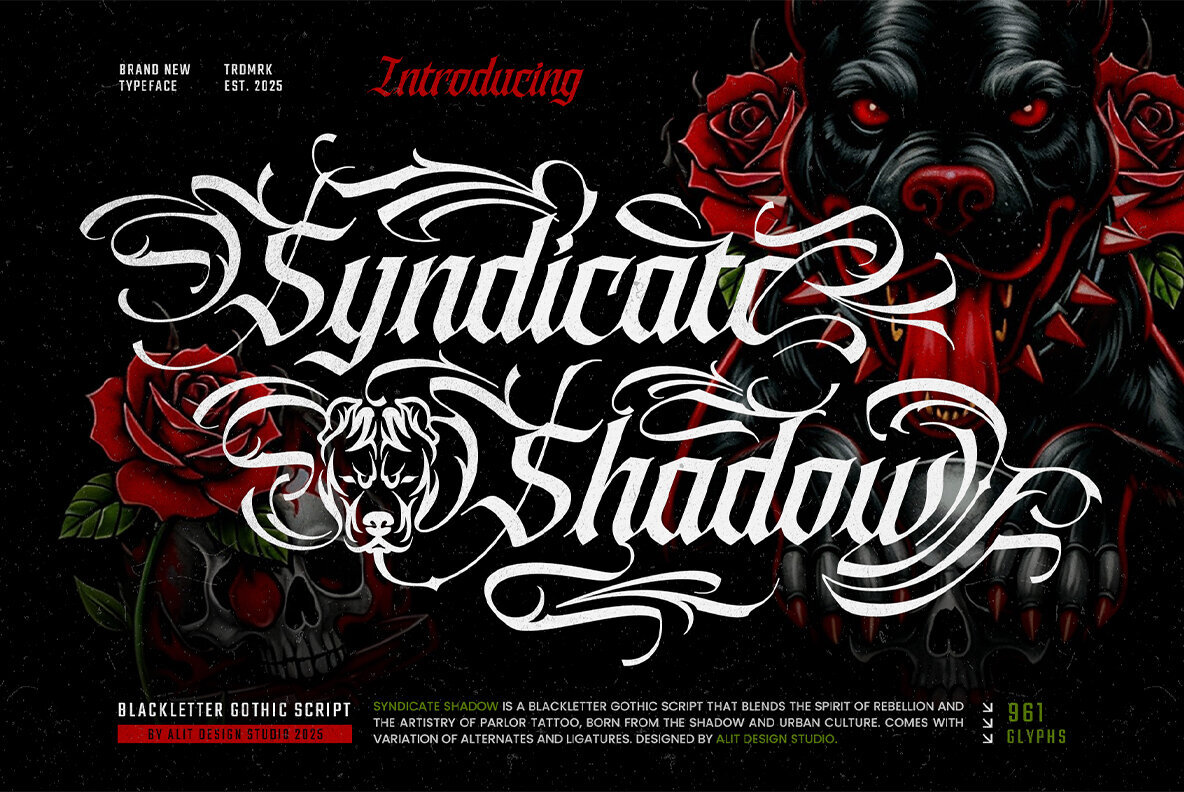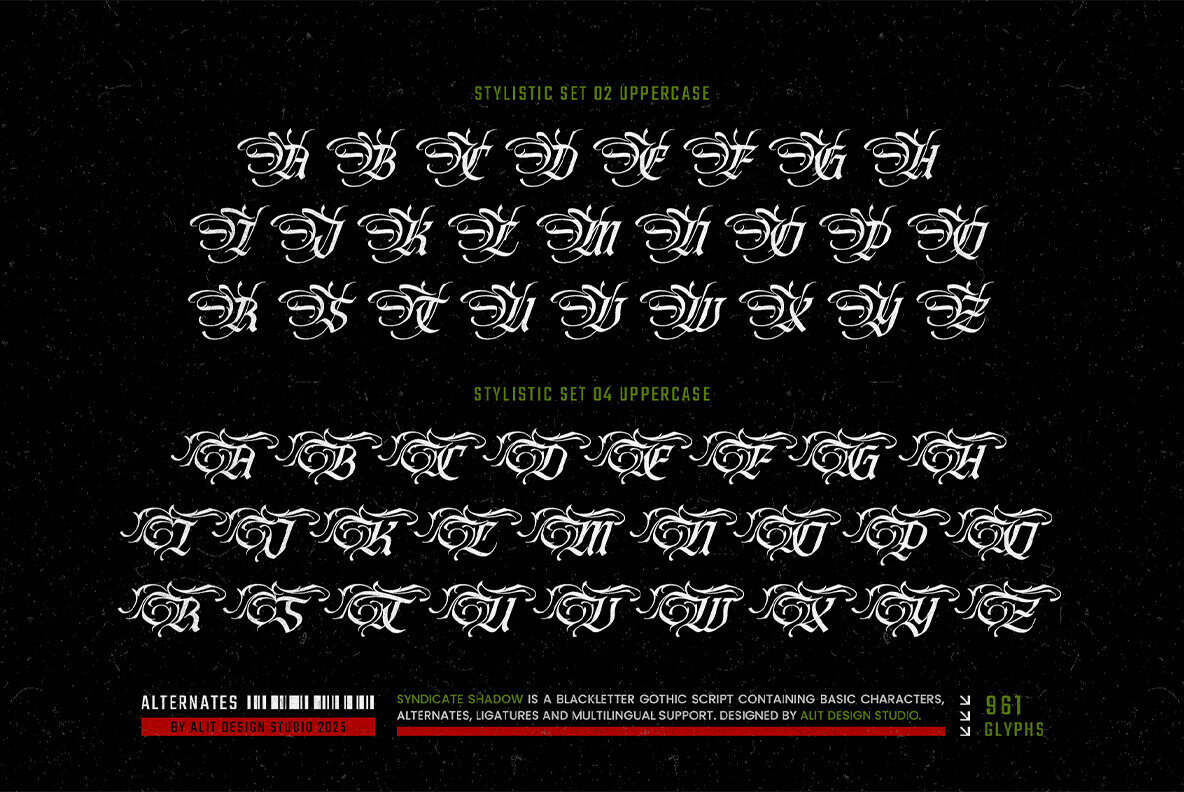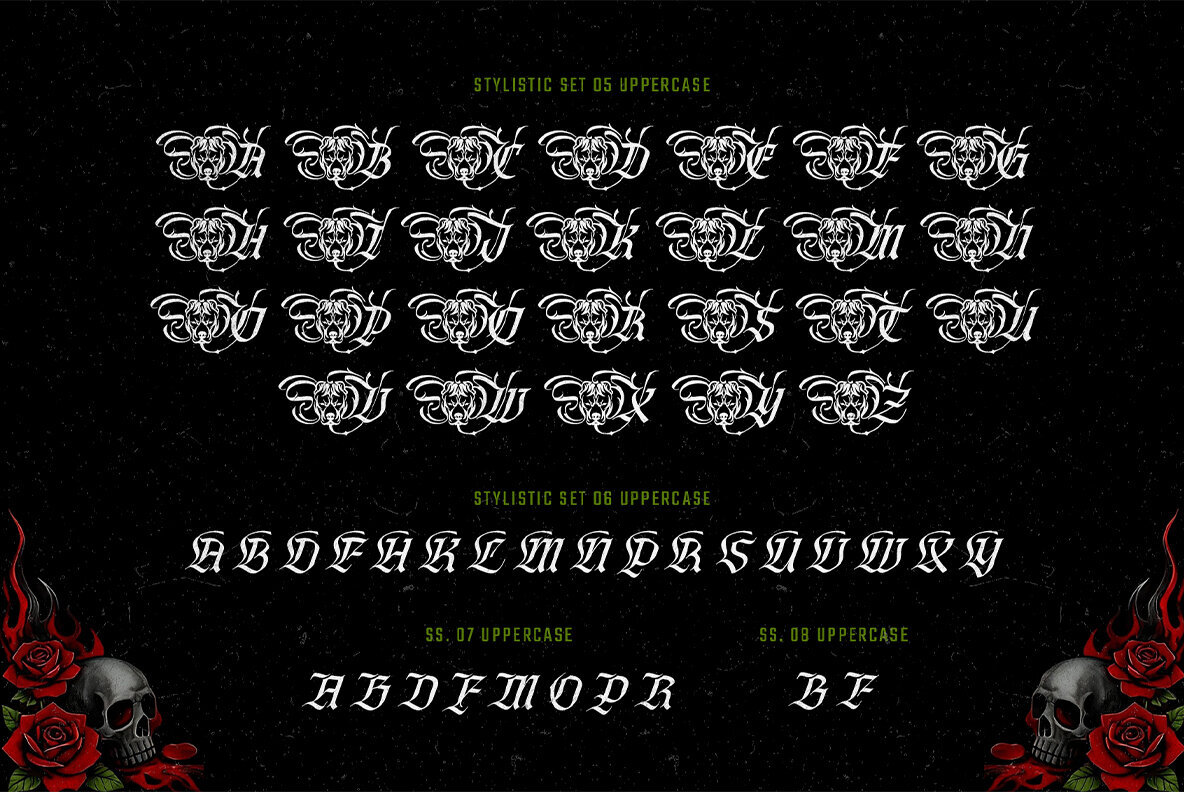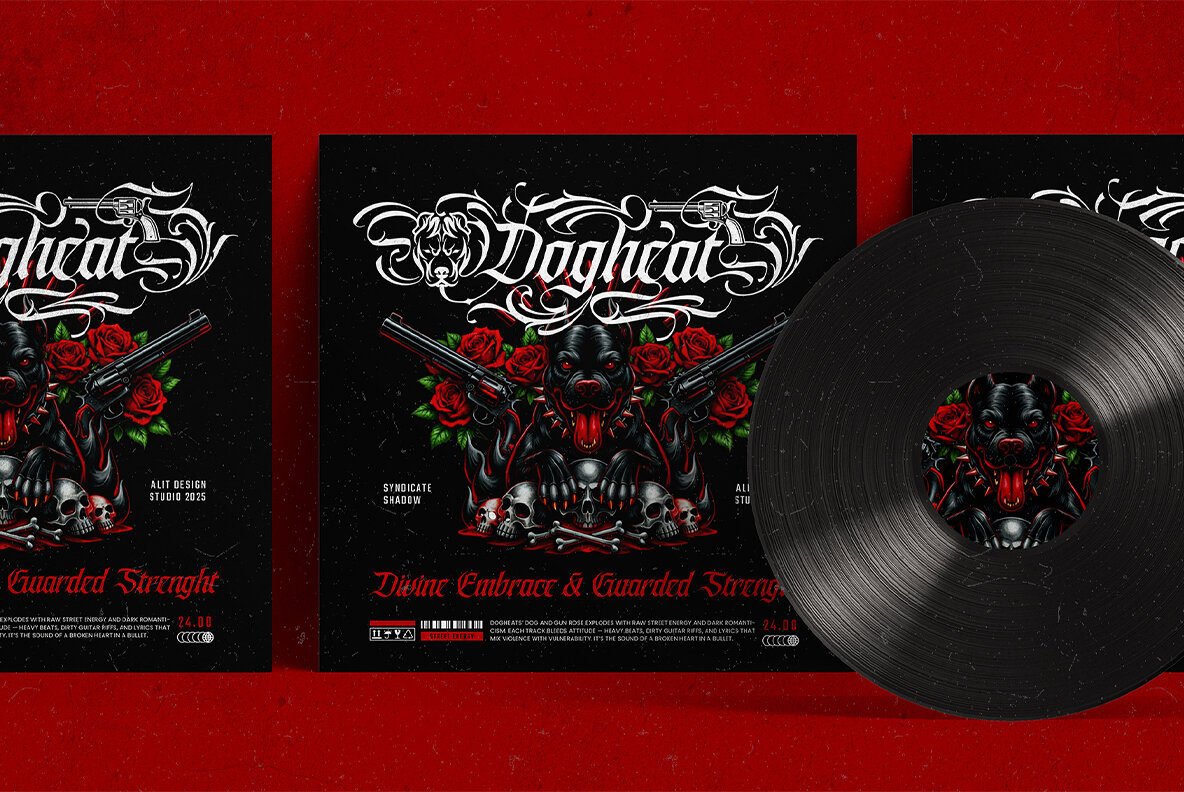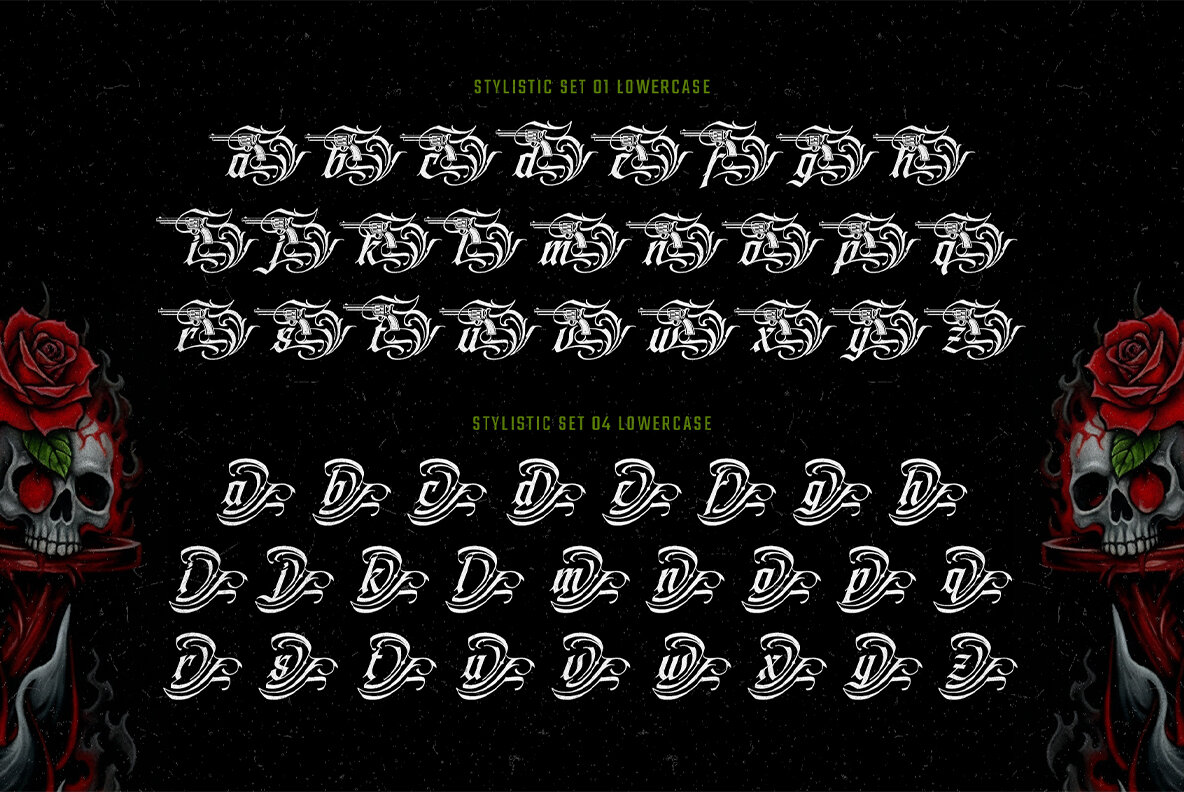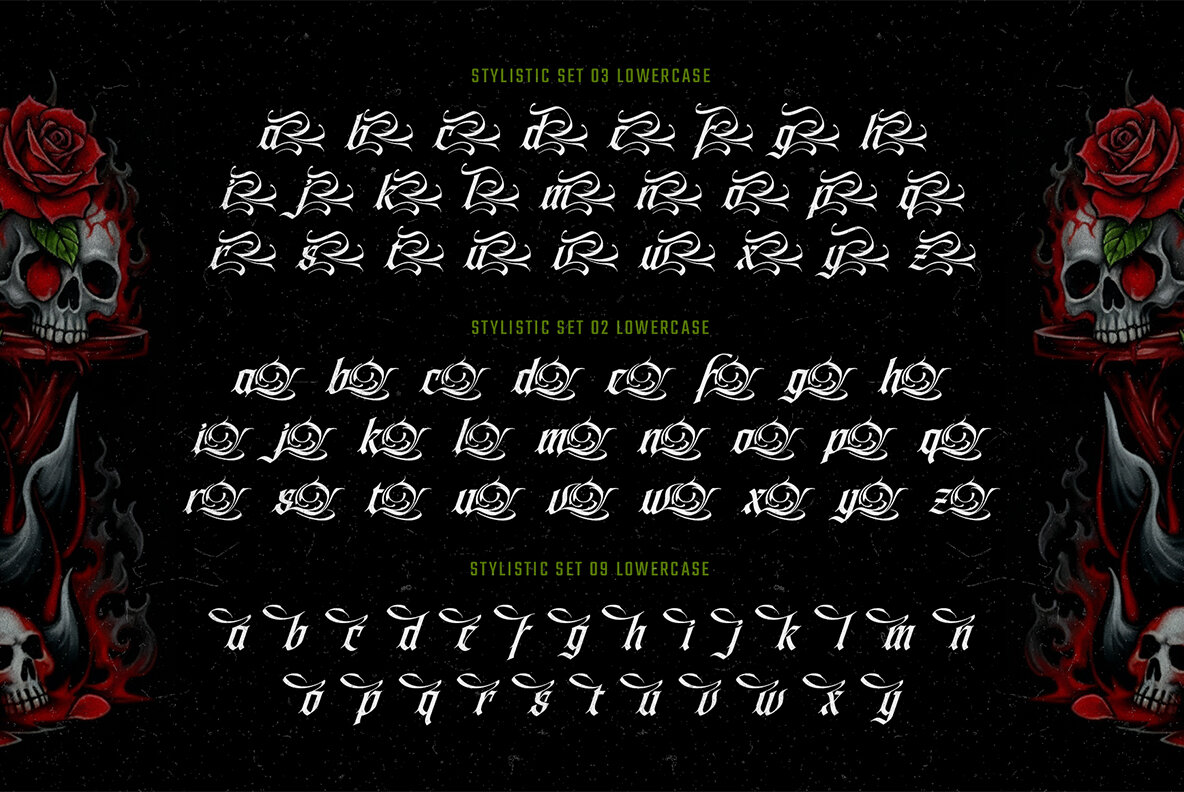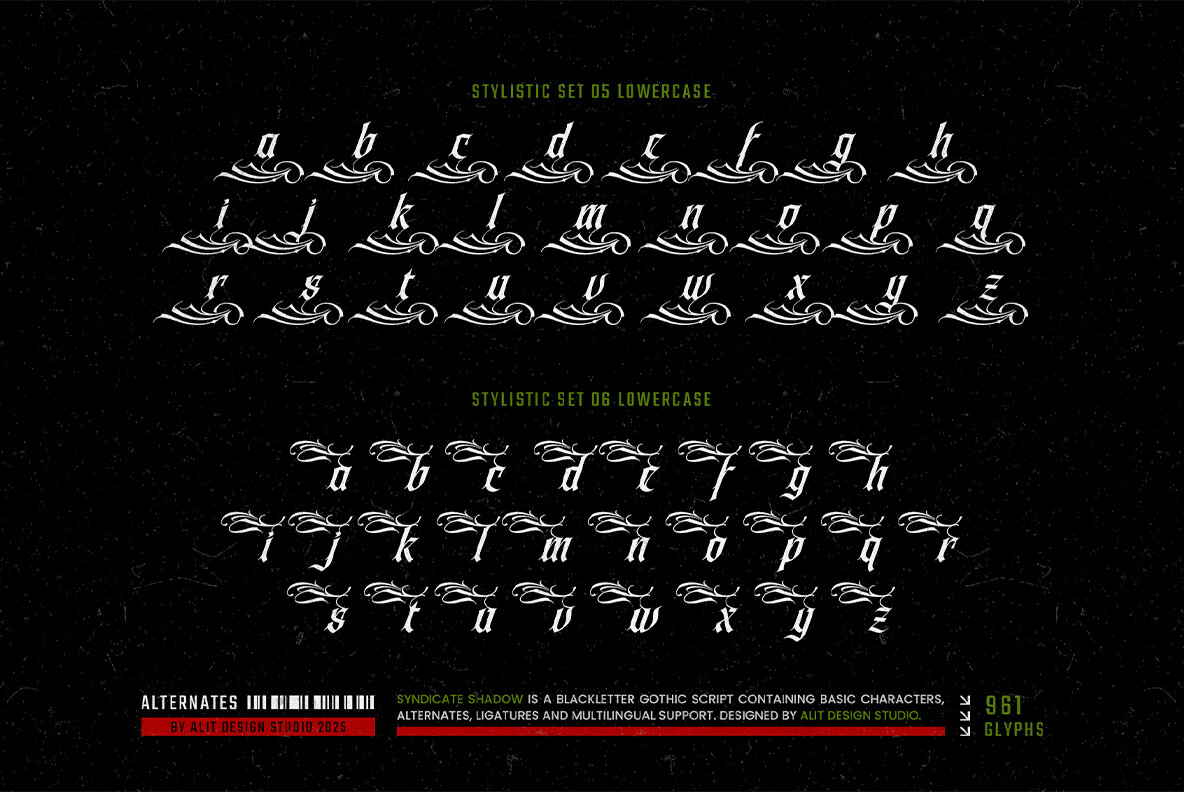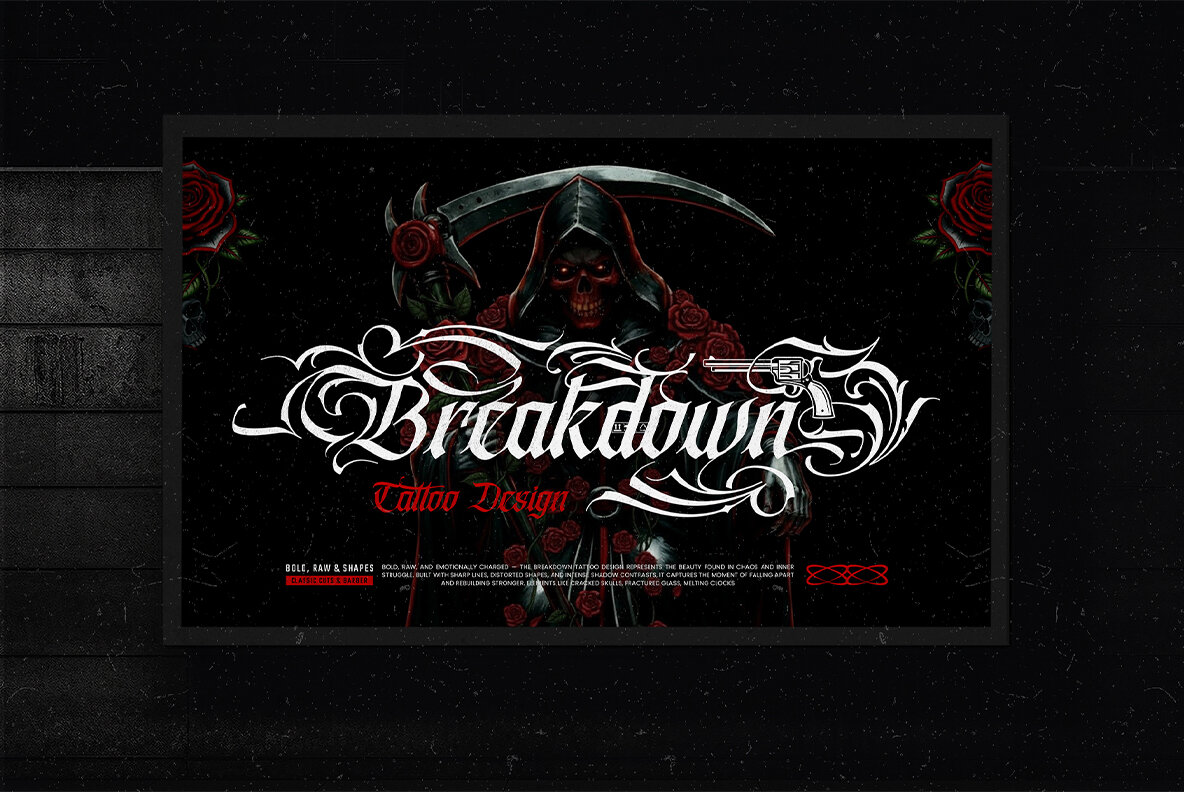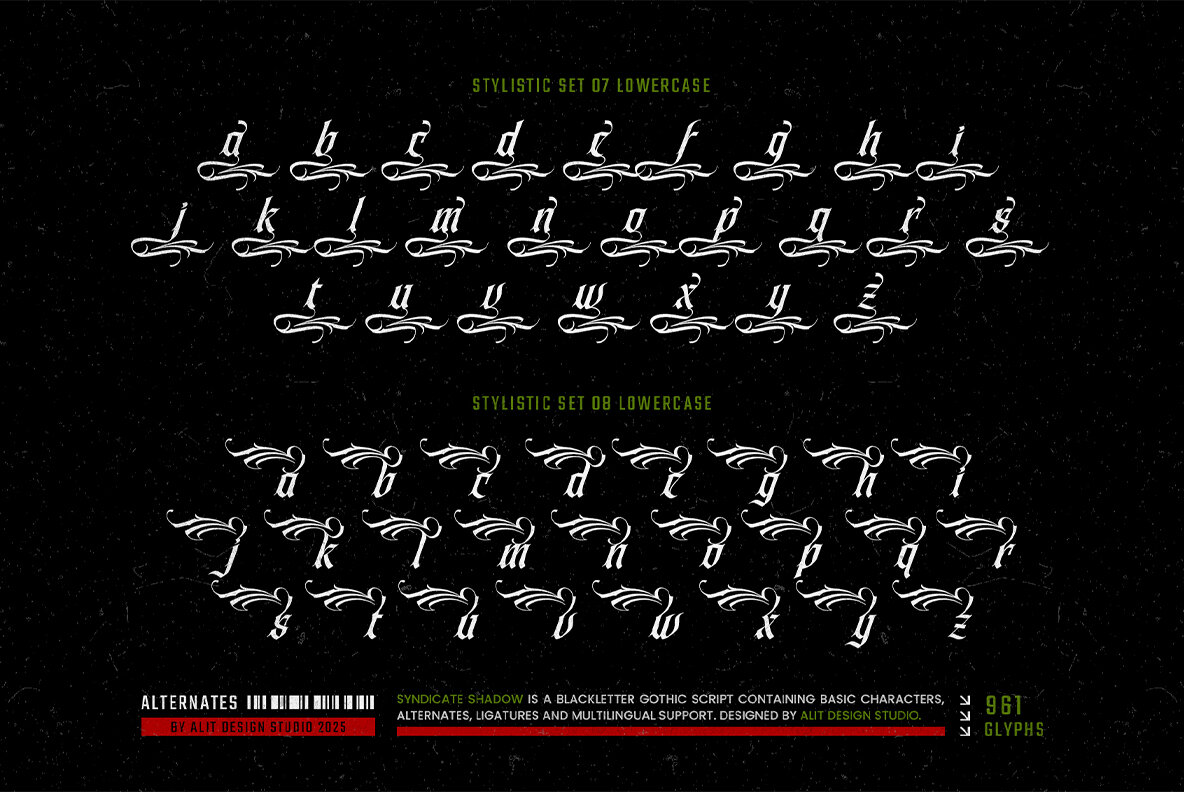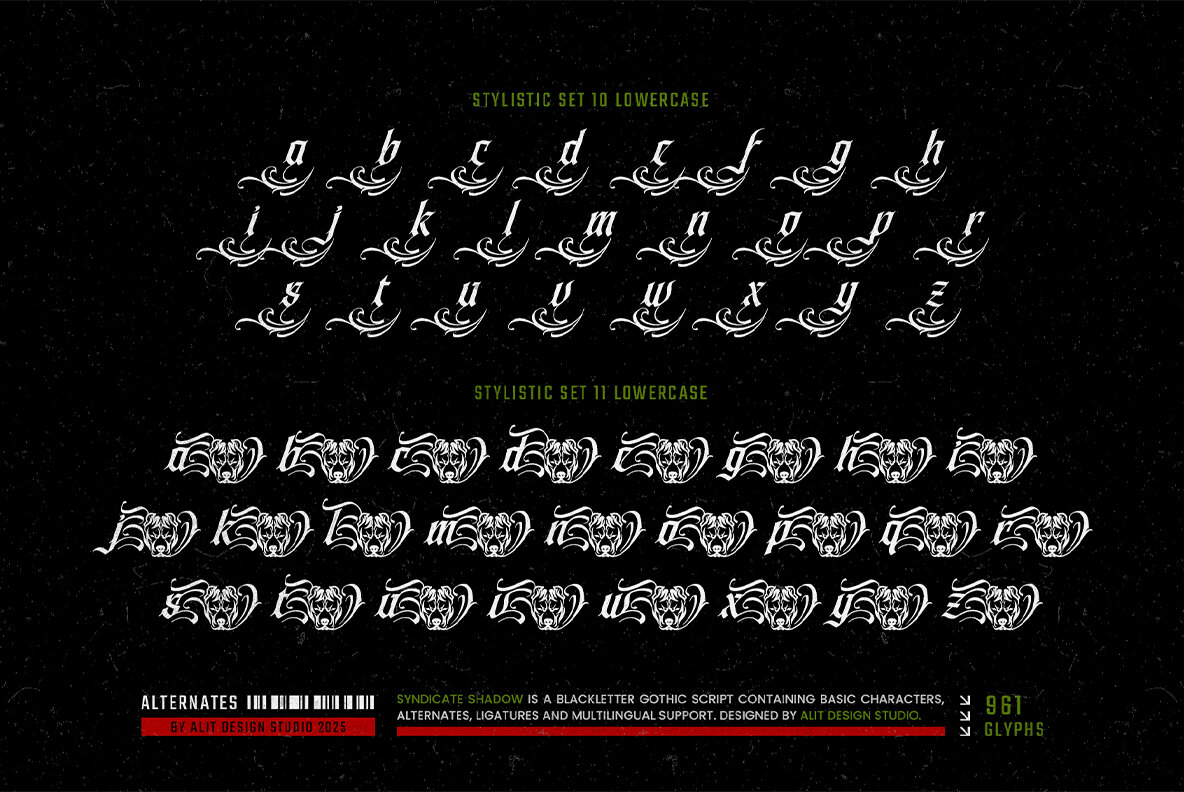
Syndicate Shadow Font
Syndicate Shadow Regular
Step into the shadows with Syndicate Shadow, a font that embodies a declaration through its striking Blackletter Gothic form. Inspired by the raw energy of parlor tattoo art and the dynamic spirit of Chicano script, this typeface resonates with rebellion and urban culture. Perfect for those who embrace street flair, this font is a bold centerpiece for the fearless. Take command of your designs with an expansive collection of over 961 glyphs. Syndicate Shadow is equipped with stylistic alternates, intricate ligatures, and decorative swashes, broadening your creative horizons beyond traditional typography. More than mere letters, it becomes an emblem of lifestyle. Features: This font is an empowering choice for projects requiring a bold, distinctive identity. Ideal for tattoo designs, striking apparel, music branding across genres such as metal, hip-hop, and rock, logo creation, and any graphics that define the 'Streetnight.' Create more than just designs. Command attention with Syndicate Shadow and ensure your work leaves a distinctive mark.Syndicate Shadow: The Voice of Rebellion